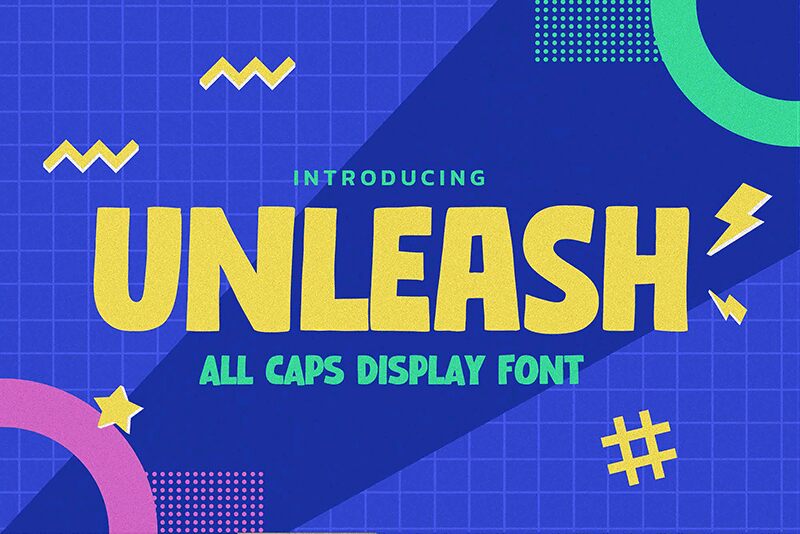
Unleash your creativity with Gassstype's latest typographic masterpiece-Unleash. This extra-bold, semi-condensed display font brings a playful yet authoritative voice to any project, embodying the whimsical flair of cartoon style with a modern twist. Crafted to command attention, Unleash is not just a font; it's an exclamation of expression, designed to elevate labels, posters, and an array of design ventures with its dramatic movement and casually scripted allure.
With its textured elegance and natural appearance, Unleash offers a perfect blend of authenticity and uniqueness that can transform mundane designs into captivating works of art. Ideal for branding, packaging or digital experiences seeking a touch of character-this all caps display font is your go-to for making bold statements that resonate. Dive into the dynamic world of Unleash for visuals that stand out with fun sophistication and unrivaled charm.